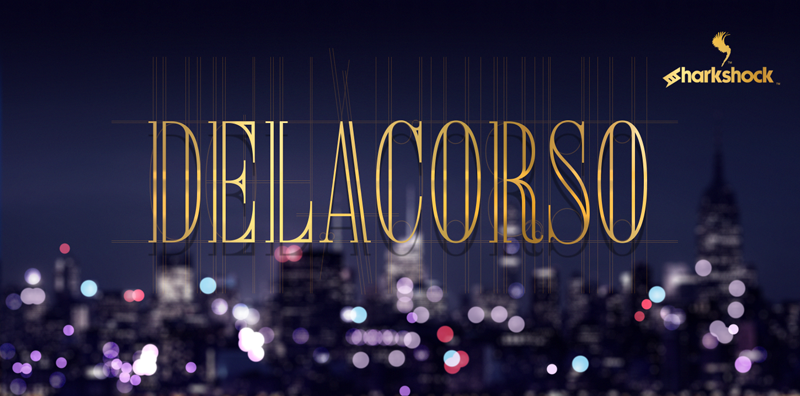
Preview and download Delacorso Outlines Font. Created by Sharkshock in Fancy Retro styles with Demo license.
TTF and OTF: Delacorso (Regular & Outlines) By Dennis Ludlow Sharkshock 2019 all rights reserved dennis@sharkshock.net Delacorso is an elegant, all-caps display font designed with luxury in mind. Inspiration comes from the many high end stores that line New York�s 5th Avenue. A tall cap height combined with broad strokes and hairline serifs produce a striking contrast. Beautiful curvature and softened edges creates a warm effect when viewed at larger sizes. The Outlined version makes use of negative space flowing through its stems. Use Delacorso for a luxury brand, magazine, titling, or fashion logo. Basic Latin, Extended Latin, Cyrillic, Greek, punctuation, alternates, and kerning are included in the full version. Please check the glyph map for all supported characters. The demo contains basic Latin and limited punctuation. The complete family with both versions is available at $40 for personal use only. This does NOT constitute a commercial license. For commercial licensing please visit www.sharkshock.net/license or send us an email. Commercial usage without a license is strictly prohibited and a violation of our terms and conditions as well as International copyright law. Visit www.sharkshock.net and take a bite out of boring design! Tags: serif, luxury, fashion, style, New York, Manhattan, broad, stroke, logo, simple, Russian, French, Spanish, European, diacritics, Cyrillic, Greek, Italian, headline, web, text, type, headers, office, company, bold, design, graphic, publishing, book, elegant, fancy, tall, business, company, all caps, capital, broadway, fifth, 5th, avenue, beauty, titling |